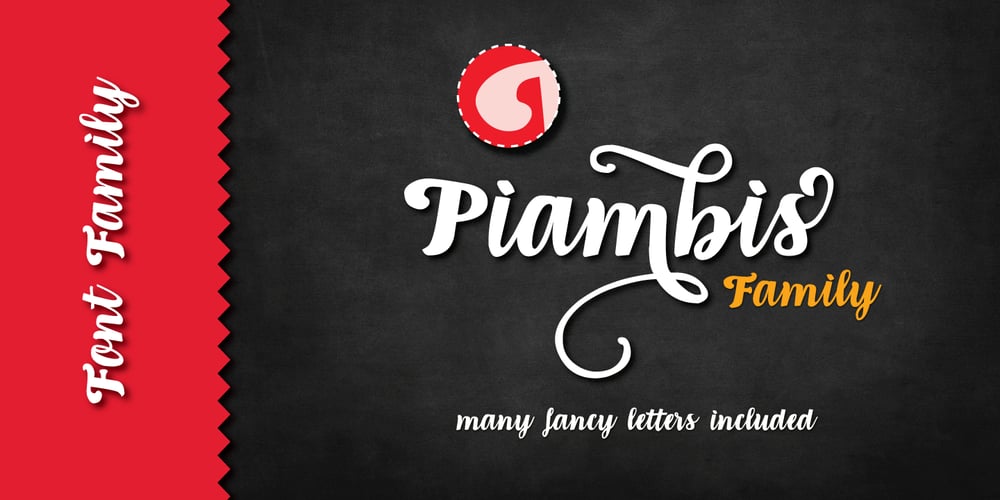
Piambis Font Family was designed by Aga Silva and published by Aga Silva. Piambis contains 3 styles and family package options. Piambis Family has been featured in “Slanted #28 Contemporary Typefaces 2016/17” This handwritten font family that boasts great variety of glyphs – many of which are fancy alternates for standard letters (click on text written in Piambis below, then click on “Glyphs”). This font is designed so the letters are available via standard programs ie. Word. It is recommended however that you use professional software such as Photoshop or Illustrator to make your work easier as there are over 1600 glyphs in each of the fonts included in Piambis family. About the family: The chief difference between the files in the family are finishes to the capital letters (in all languages) and appearance of the lowercase “f”. The fonts support all languages that use latin script – yes – Vietnamese (Tiếng Việt) and Pinyin is also available.